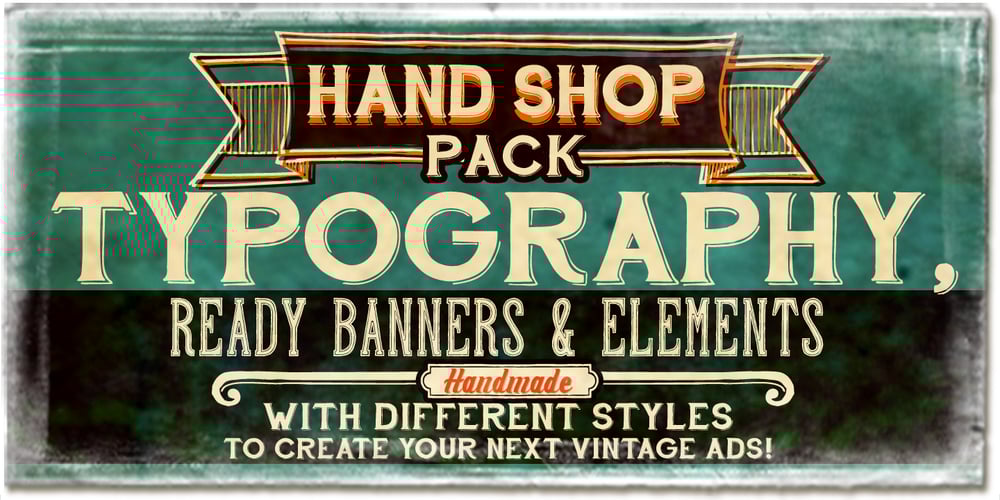
Hand Shop Pack Font Family was designed by published by Fontscafe. Hand Shop Pack contains 14 styles and family package options. We’re really excited to unveil our all-new line of ‘HAND SHOP FONTS’. As the name suggests, these are fonts that have a hand-made or hand-typography feel reminiscent of shop signboards from the past with an attentive focus by the shop owners, always looking to discover exciting and unique ways to promote their products or services. While for decades typography has strived hard for perfection, one of the routes taken by the typography world as a whole has been to eliminate any form of ‘human imperfection’ in the typesets, but what about the times when you DO want to send across emotions of a personal human touch through your fonts? We did a step back…these fonts will give your shop-signs a personal touch, telling your buyers that they will get personalized attention, be it through an online or an offline business…We hope you love them as much as we do. The “Hand Shop EXTENDED Pack” containing a total of 14 fonts from the “Hand Shop Banners & Elements Pack” (3 fonts) , the “Hand Shop Typography Pack 01” (8 fonts) and the “Hand Shop Typography Pack 02” (3 fonts)